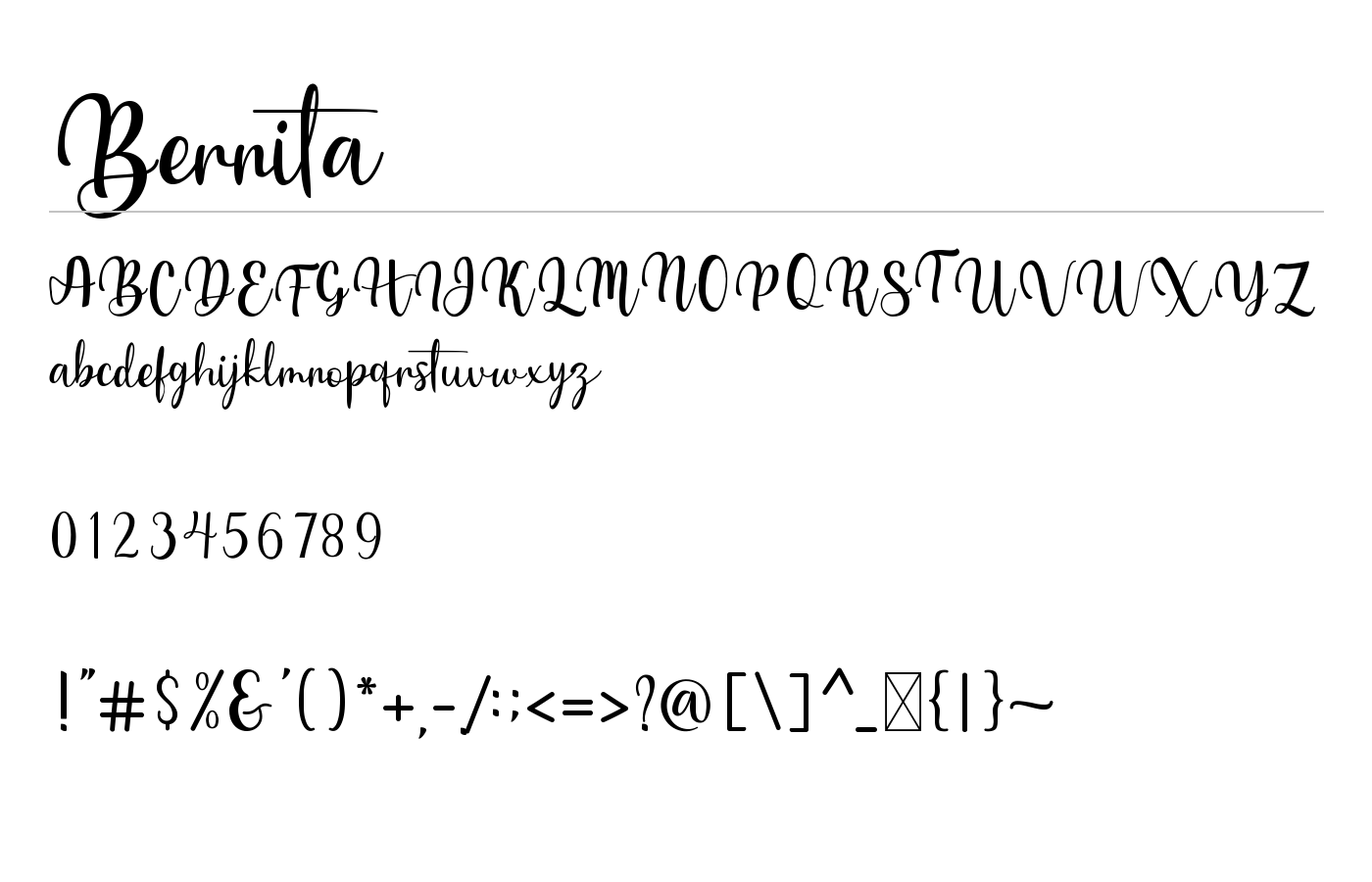
Bernita is a charming script font characterized by its smooth, flowing lines and playful, hand-drawn style. With its elegant uppercase letters and casual lowercase script, it offers a friendly and artistic feel ideal for creative branding, invitations, and stylish headlines. This font’s warmth and personality make it perfect for fashion, lifestyle, and boutique designs that seek a personal and inviting touch.
Bernita Font
About Bernita Font
| Font family | Bernita Font |
| Designer | Ari Wibowo |